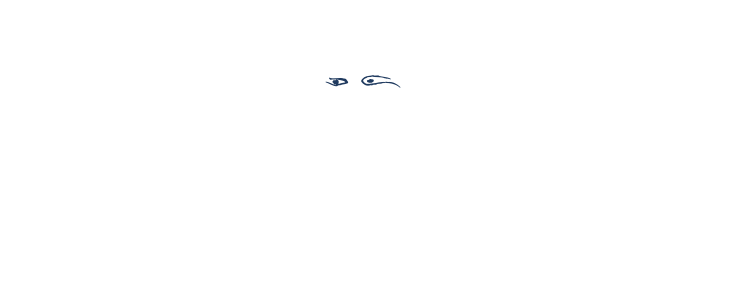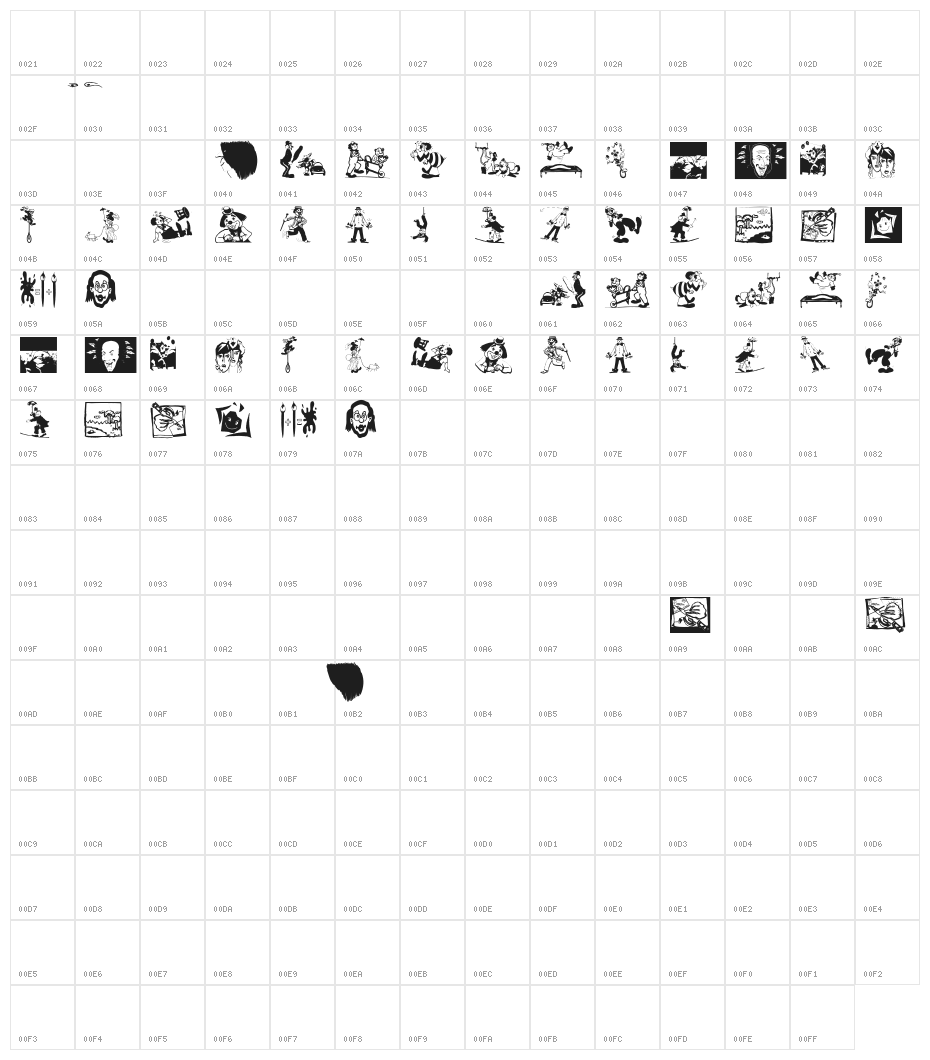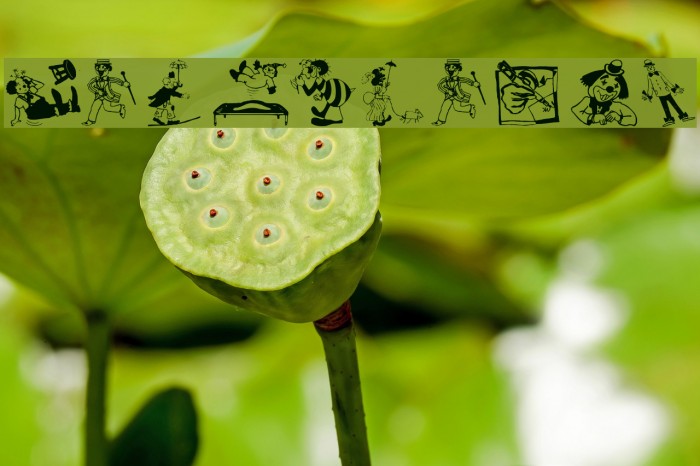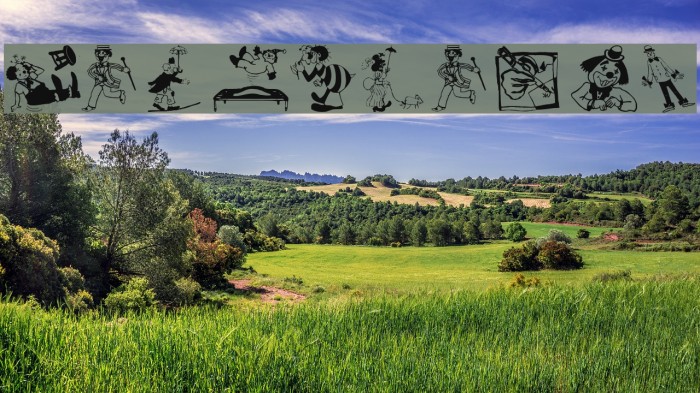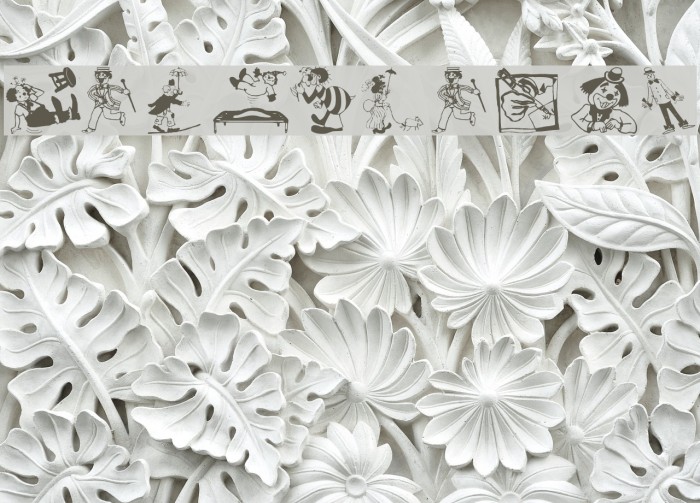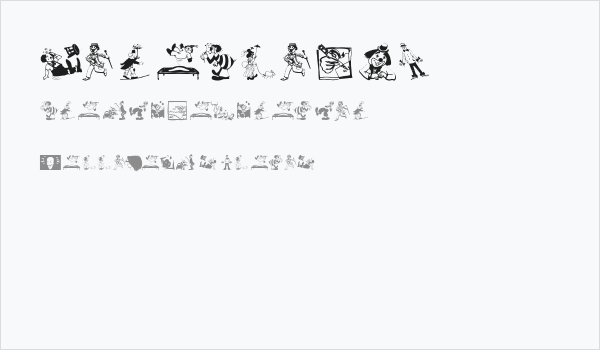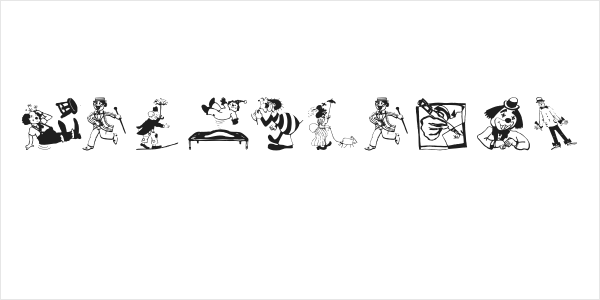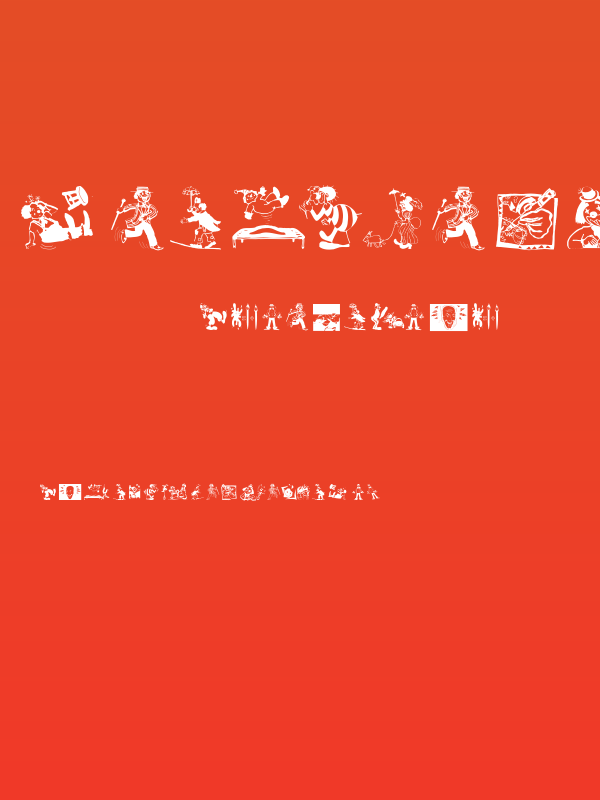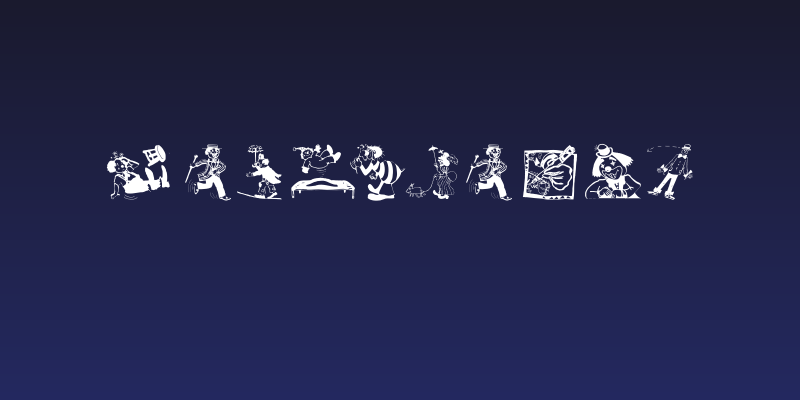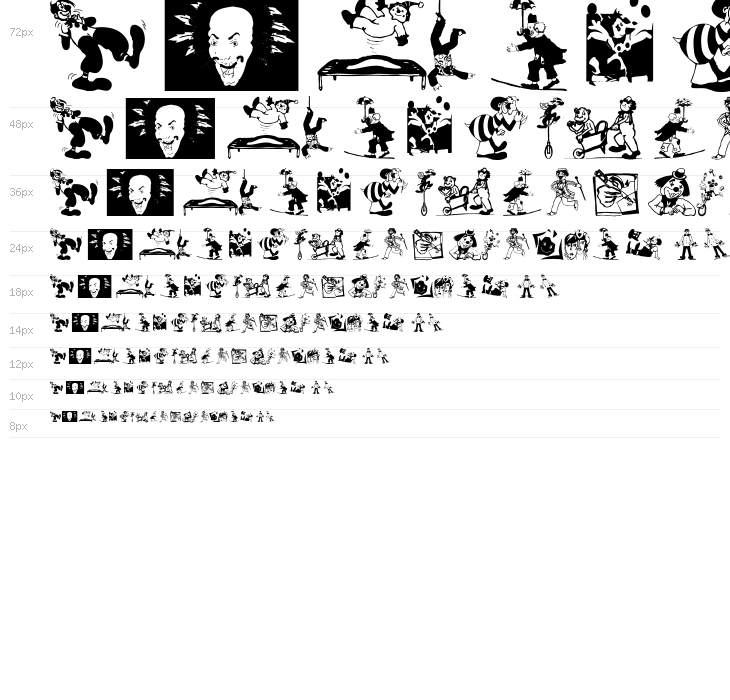
MoreClowns Font
MoreClowns Description
A playful and whimsical decorative font featuring detailed cartoon illustrations of clowns, circus acts, and comedic expressions in place of standard alphanumeric characters and symbols.
| Overall Style | Whimsical, Playful, Cartoonish |
| Use Case | Logos, Headlines, Posters, Themed graphics |
| Proposed Projects | ChildrenΓ’β¬β’s party invitations, circus posters, playful branding, comic books, themed event flyers. |